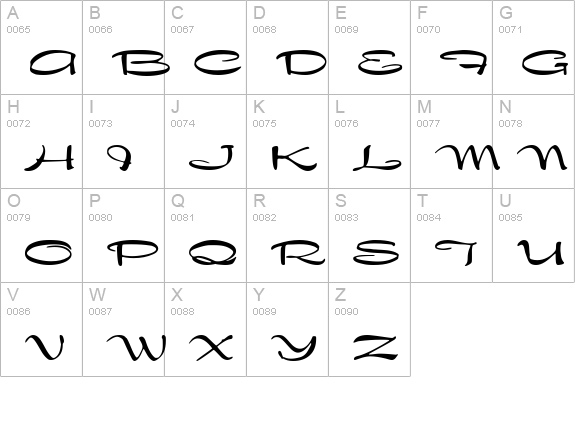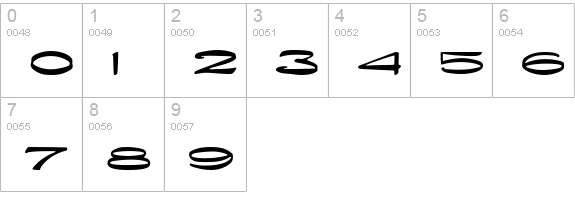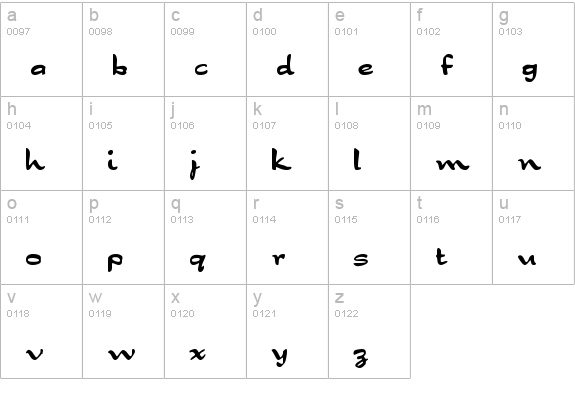
Dragonfly MF Font Details
Dragonfly MF font is a stunning display typeface that exudes elegance and sophistication. With its intricate details and graceful curves, this font is perfect for adding a touch of style to any design project. The Dragonfly MF font is not only visually appealing but also versatile, making it suitable for a wide range of applications, from branding to editorial design. What makes Dragonfly MF font even more appealing is that it is available for free download at FontsMarket.com. This means that you can easily access this beautiful font and start using it in your projects without any cost. Whether you are a designer looking to elevate your work or a creative enthusiast exploring new typefaces, Dragonfly MF font is a fantastic addition to your font collection. Download it today and let your creativity soar with this exquisite typeface.